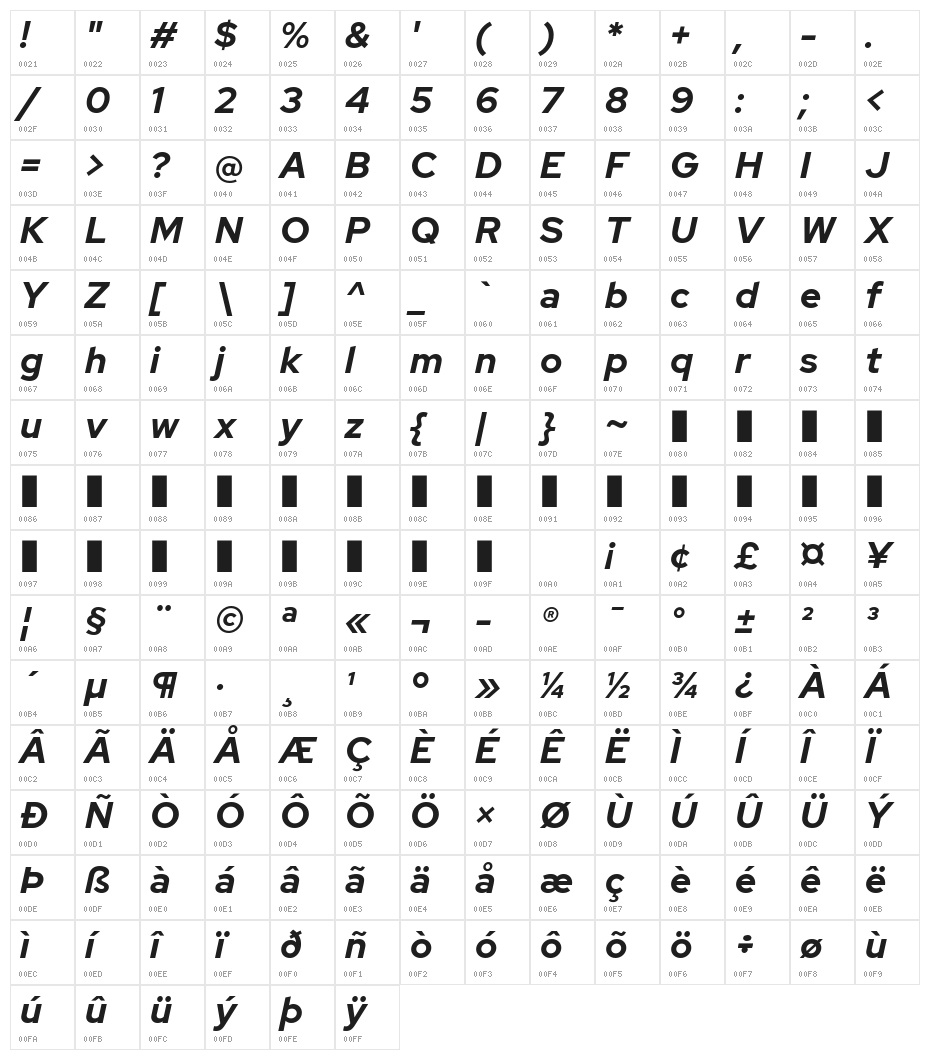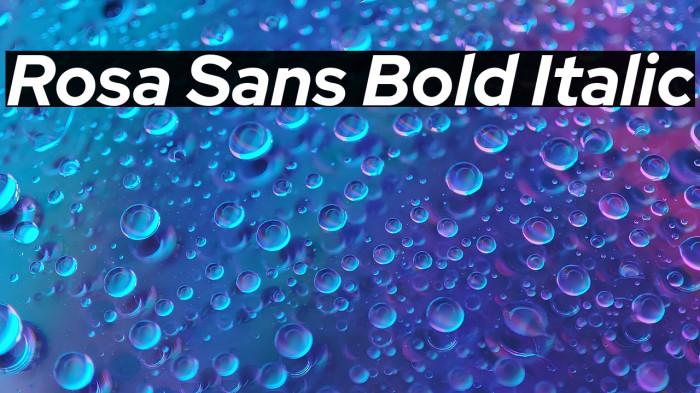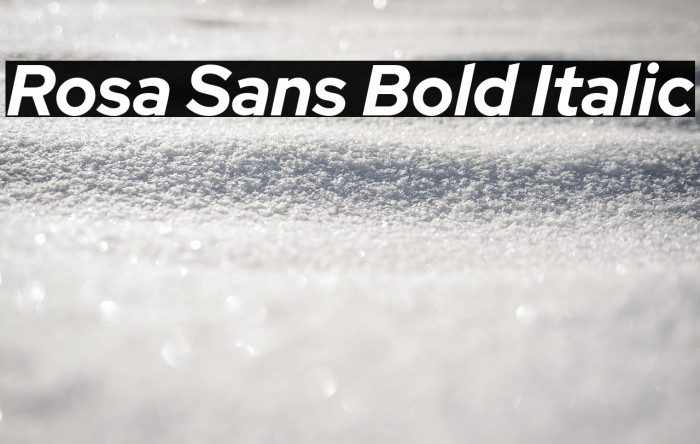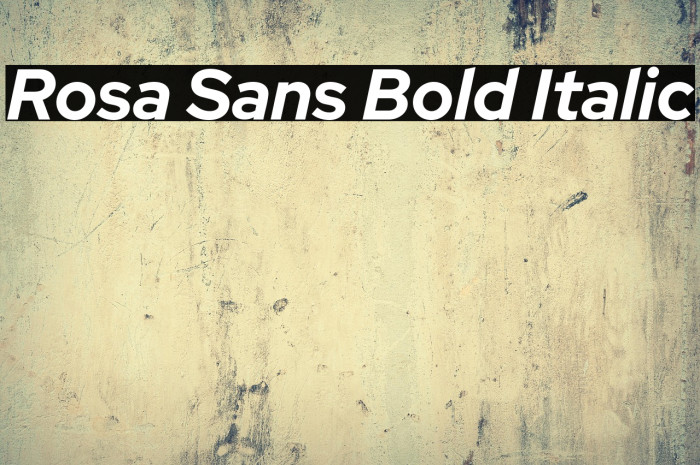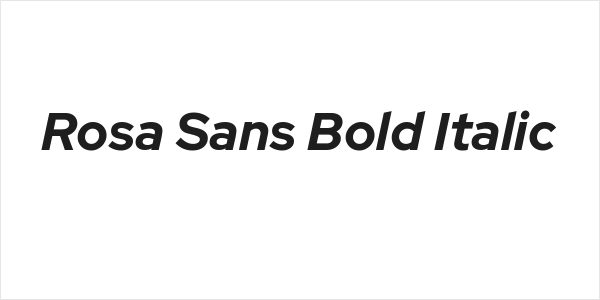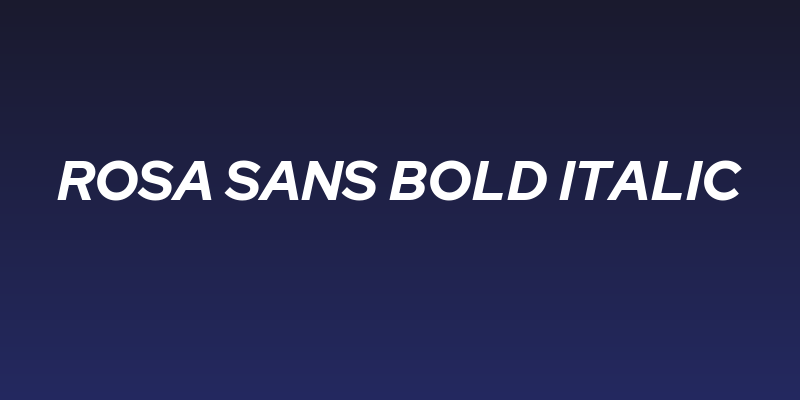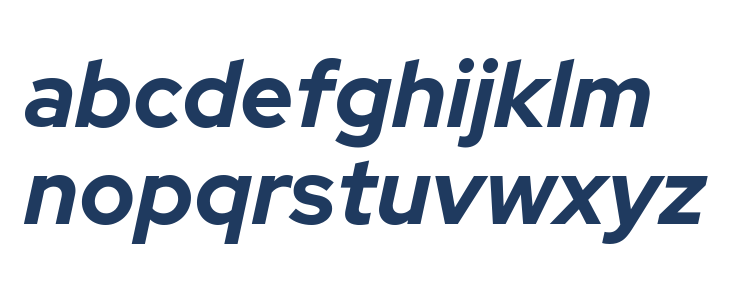
Rosa Sans Bold Italic Font
Rosa Sans Bold Italic Description
This typeface features a bold and italicized style, characterized by its clean and modern sans-serif design. The letters are slightly slanted, giving a dynamic and forward-moving appearance. The strokes are consistent in thickness, contributing to a uniform and cohesive look. The uppercase and lowercase letters are well-proportioned, with a slight emphasis on the horizontal axis. The numerals are clear and easy to read, making them suitable for various applications. Special characters are included, maintaining the same bold and italicized style, ensuring versatility in design projects.
| Use Case | Headlines, Logos, Advertising |
| Proposed Projects | Ideal for branding, advertising, headlines, and digital media where a modern and bold statement is needed. |